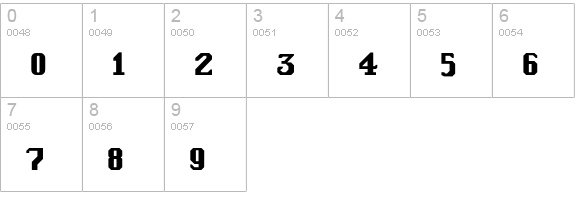
Relbe-Roman Font Details
Introducing Relbe-Roman, a versatile and elegant font that is sure to captivate any design project with its timeless appeal. This font effortlessly combines modernity with a classic charm, making it the perfect choice for a wide range of creative endeavors. With its clean lines and balanced proportions, Relbe-Roman exudes a sense of sophistication and professionalism. Whether you're designing a logo, crafting a print advertisement, or creating a stunning website, this font will effortlessly elevate your work to new heights. One of the most remarkable aspects of Relbe-Roman is that it is available free of charge. Yes, that's right - you can download this incredible font at absolutely no cost from FontsMarket.com. We believe that creativity should be accessible to all, and by offering Relbe-Roman for free, we're ensuring that everyone can enjoy its beauty and versatility. Designed with meticulous attention to detail, Relbe-Roman boasts a wide variety of weights and styles, allowing you to explore endless typographic possibilities. From thin and delicate to bold and impactful, this font adapts effortlessly to any design brief, making it a truly indispensable tool in your creative arsenal. Whether you're a professional designer, a student, or simply someone with a passion for typography, Relbe-Roman is a must-have addition to your font library. Its versatility, elegance, and the fact that it is freely available for download at FontsMarket.com make it an irresistible choice for any design project. So don't miss out - unlock the endless possibilities of Relbe-Roman today and let your creativity soar.